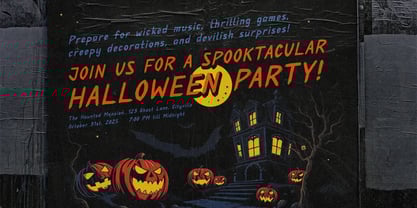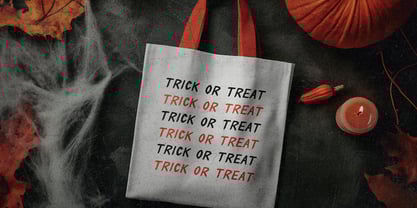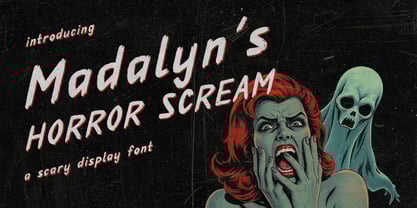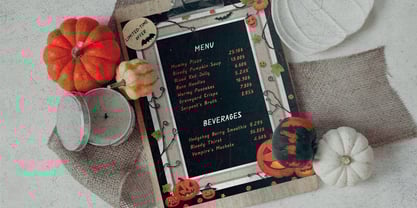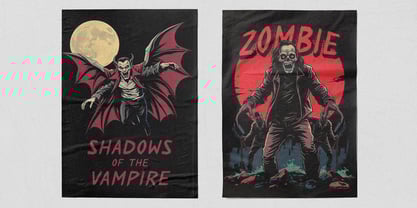
Madalyns Horror Scream
by Fidan Fonts
The Madalyns Horror Scream Font Family was designed by Fidan Aslanova and published by Fidan Fonts. Madalyns Horror Scream contains 1 styles. More about this family
Introducing Madalyn's Horror Scream the display scary Halloween-themed font captures the eerie spirit of the holiday with a retro horror aesthetic. Designed to evoke a spooky, vintage vibe, it features ragged, distressed edges that resemble chalk or charcoal scratches, giving the appearance of a hauntingly sketched message. Perfect for creating chilling invitations, banners, or decorations, this font adds a sinister, nostalgic touch to any Halloween project.
Designers: Fidan Aslanova
Foundry: Fidan Fonts